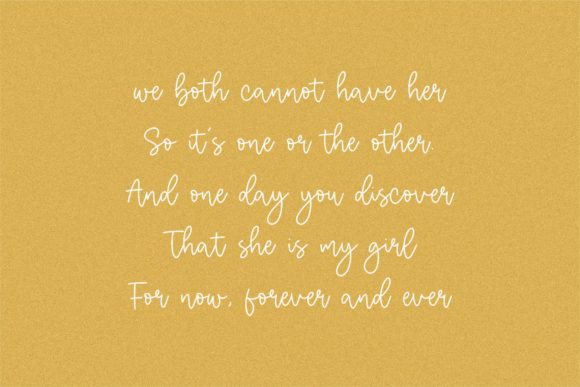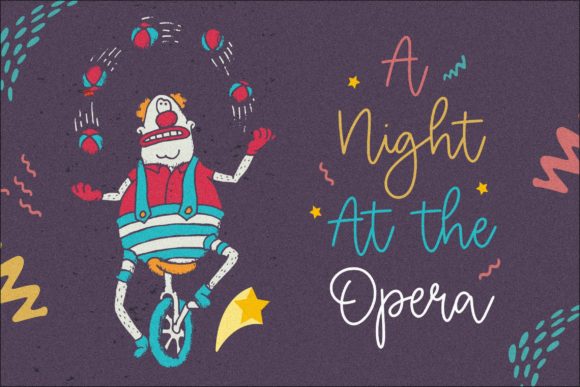
Guardian Circus Font
db-ku.com - Script & Handwritten -- Guardian Circus is a sweet, thin and natural handwritten font. It looks friendly and adaptable and it will certainly enhance each and every one of your designs.